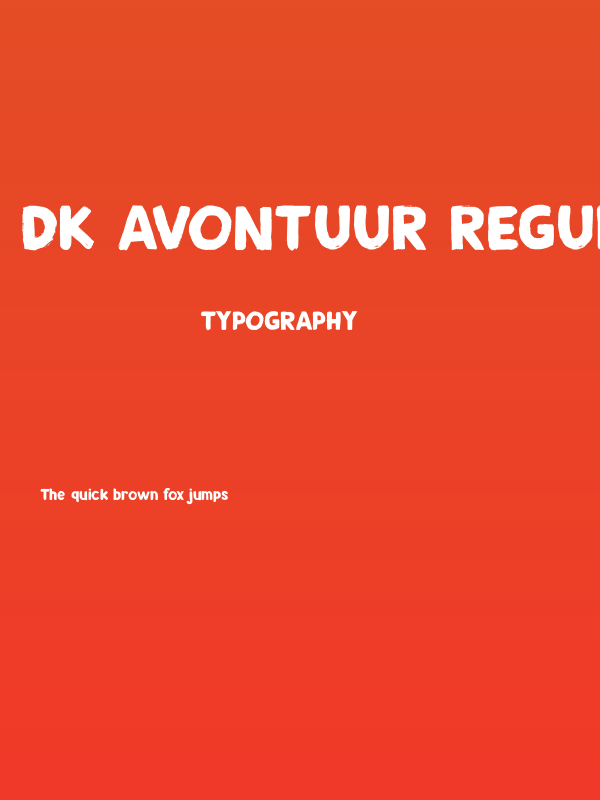
DK Avontuur Regular Font
DK Avontuur Regular Description
This font features a bold and expressive style with a hand-drawn appearance. The characters are thick and slightly irregular, giving them a playful and organic feel. The uppercase and lowercase letters maintain a consistent weight, while the numbers and special characters complement the overall design. The strokes are uneven, adding to the handcrafted aesthetic, making it ideal for projects that require a touch of creativity and uniqueness. The font's boldness ensures readability, while its artistic flair makes it stand out in any design.
| Proposed Projects | Ideal for posters, children's books, creative branding, and artistic projects. |